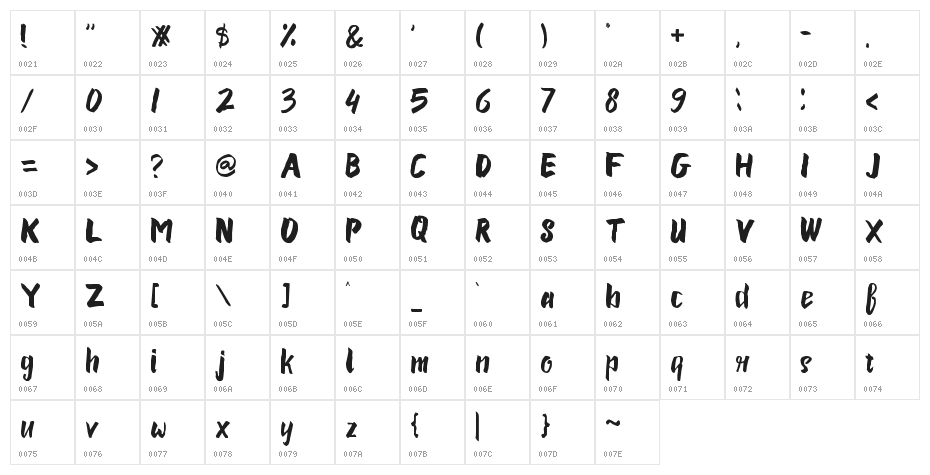
Susan Font
Susan Description
This font features a bold, brush-like style with a hand-painted appearance. The characters are dynamic and expressive, showcasing a sense of movement and energy. The uppercase letters are robust and slightly irregular, adding to the handcrafted feel. Lowercase letters maintain a consistent style, with some characters having unique, artistic flourishes. The numbers are bold and match the overall aesthetic, while the special characters are creatively designed to complement the alphabet. This font's organic and artistic nature makes it suitable for projects that require a personal touch.
| Use Case | Logos, Headlines, Posters |
| Proposed Projects | Ideal for creative projects such as posters, branding, packaging, and invitations where a personal, artistic touch is desired. |